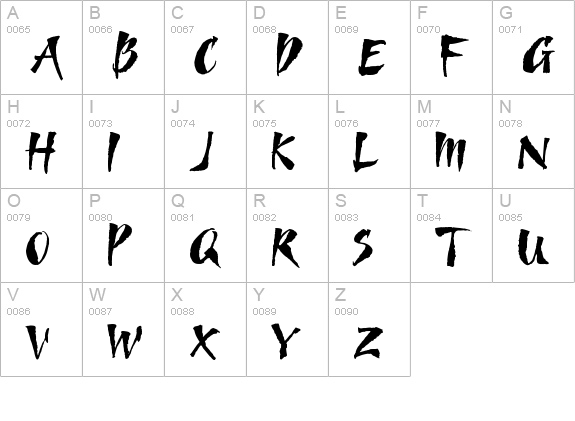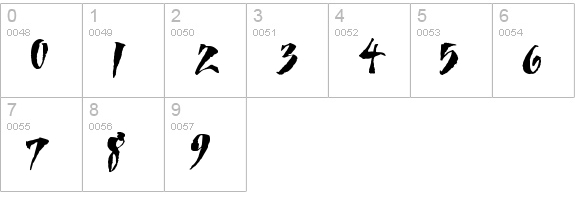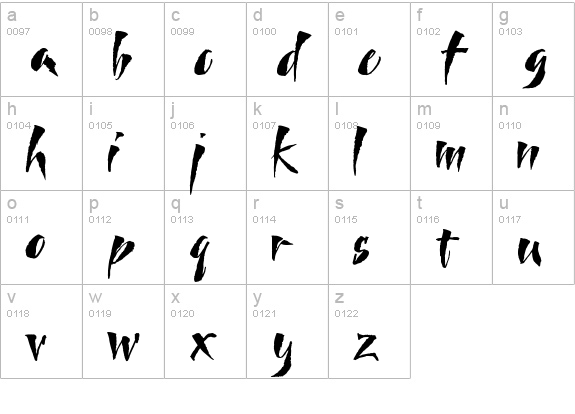
Goombella Font Details
Introducing the Goombella font, a stylish and modern typeface that is perfect for adding a touch of sophistication to your projects. This elegant font features sleek lines and a contemporary design that will make your text stand out. The Goombella font is versatile and can be used for a wide range of design projects, from logos to invitations to branding materials. The best part is that the Goombella font is available for free download at FontsMarket.com. With just a few clicks, you can add this beautiful font to your collection and start using it in your designs right away. Whether you're a professional designer or just getting started with typography, the Goombella font is sure to impress with its clean and elegant look. Don't miss out on this fantastic opportunity to enhance your designs with the Goombella font. Download it for free today and elevate your projects to the next level.